KIS FOR KILLER. Another great batch of letters. Thanks everyone. Enjoy.
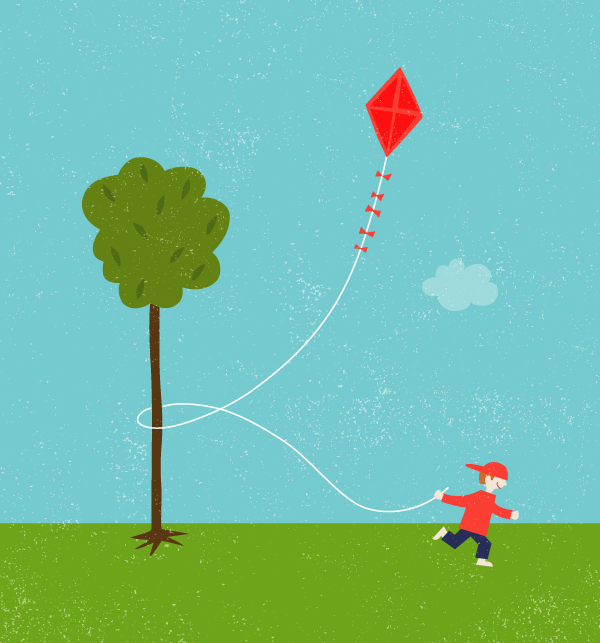
JONALYNNE BUSTAMANTE
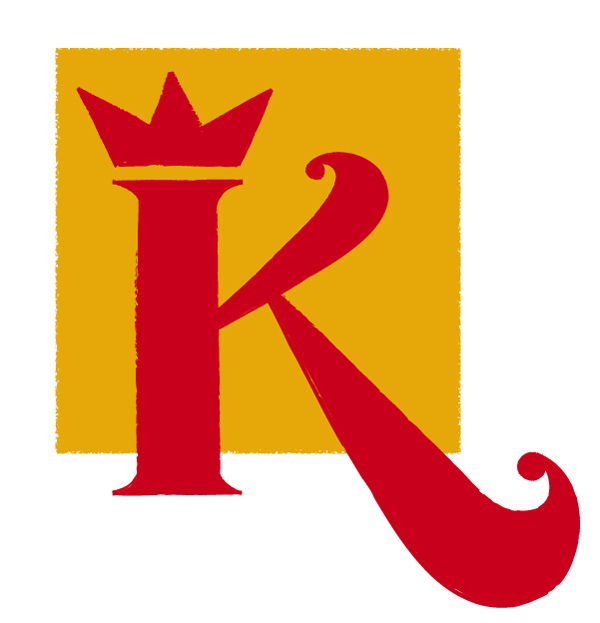
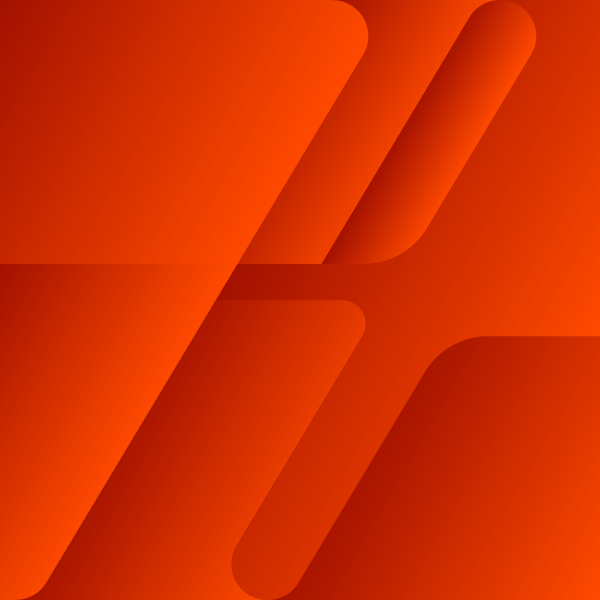
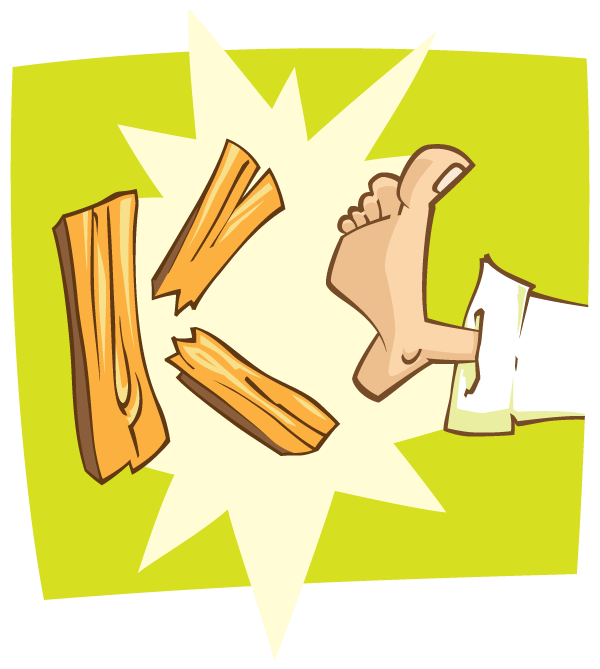
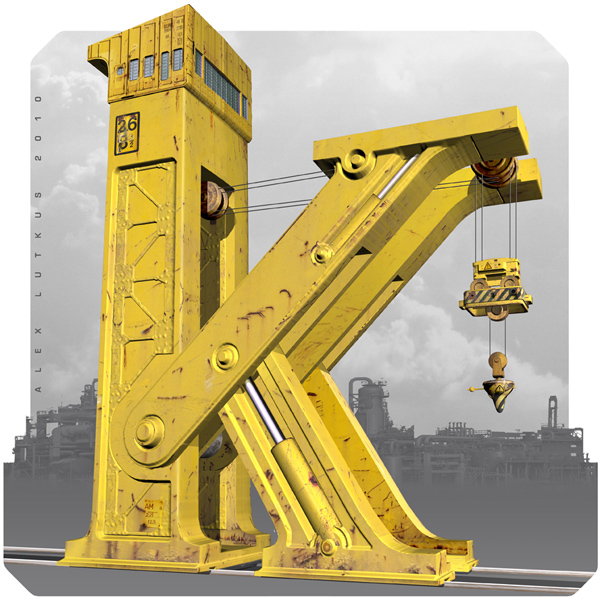
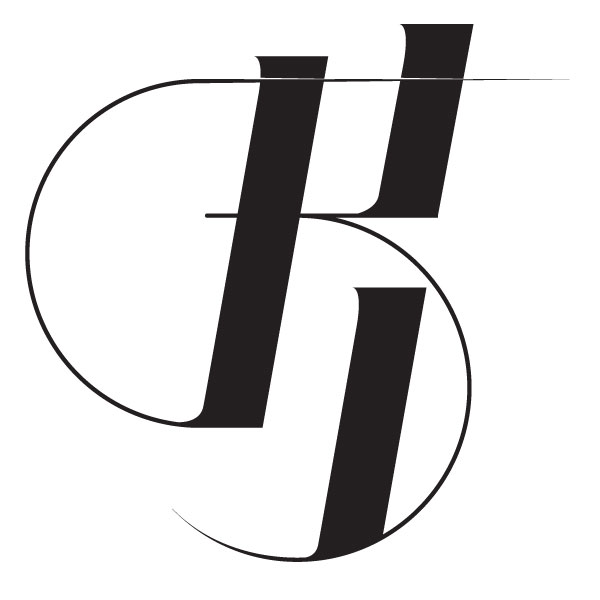
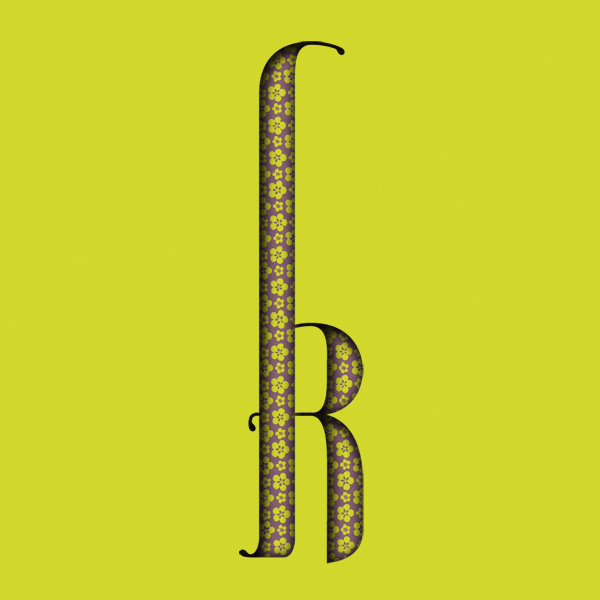
JESSICA FREASE
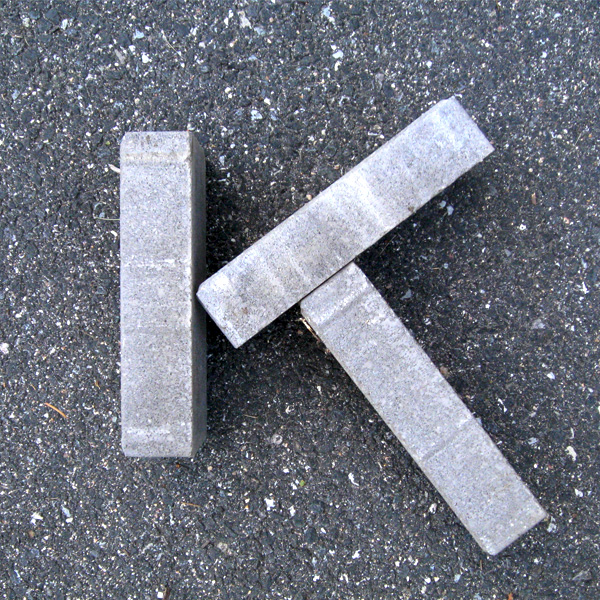
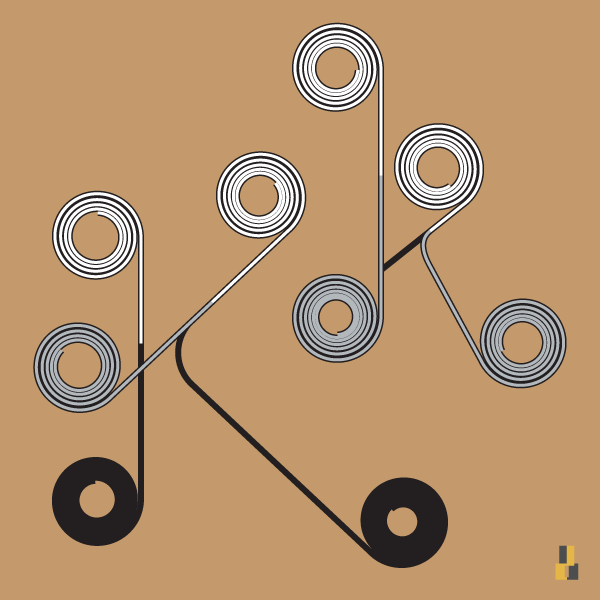
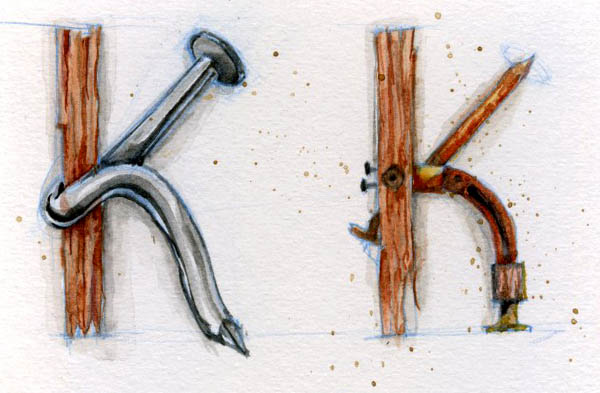
KIPP DAVIS
KYLE BAIN
TIM CANNY
JULES R.
SO many brilliant ones here! i love the kissing squirrels by rory!!! and the letters made from the folded fabric always amaze me.